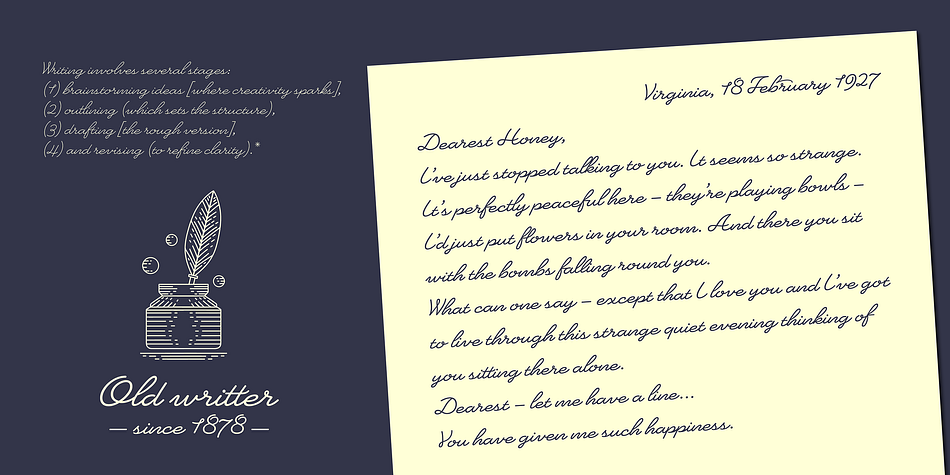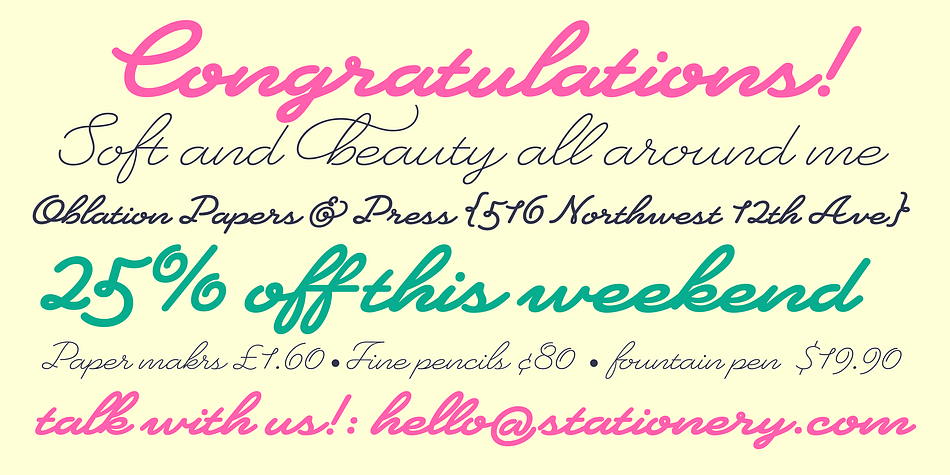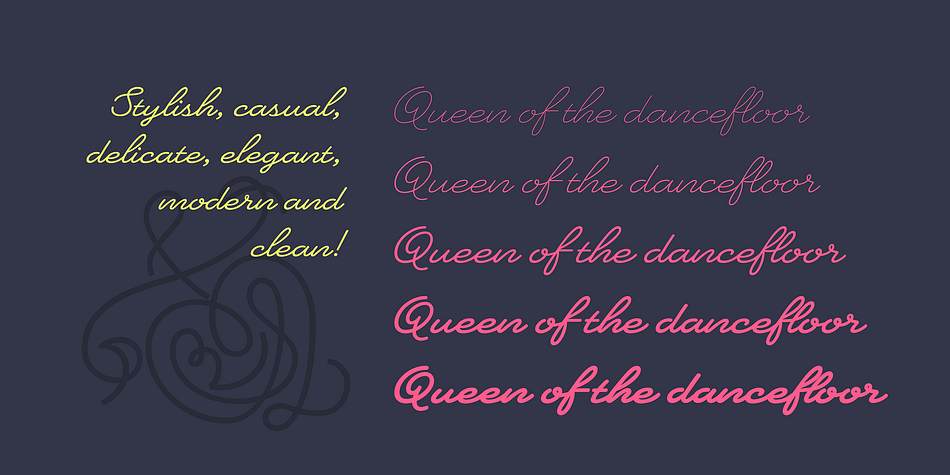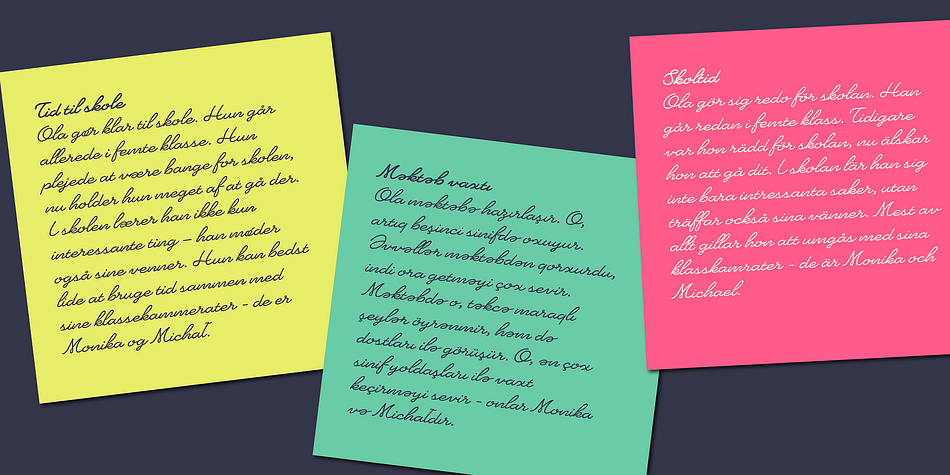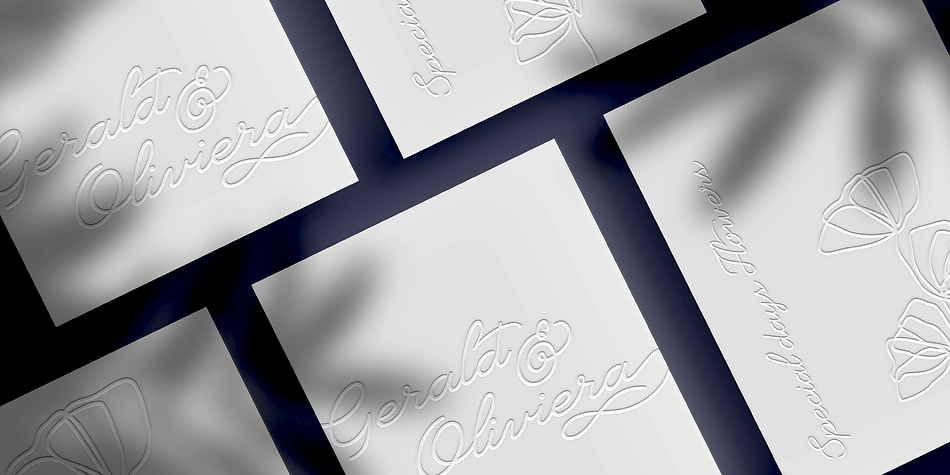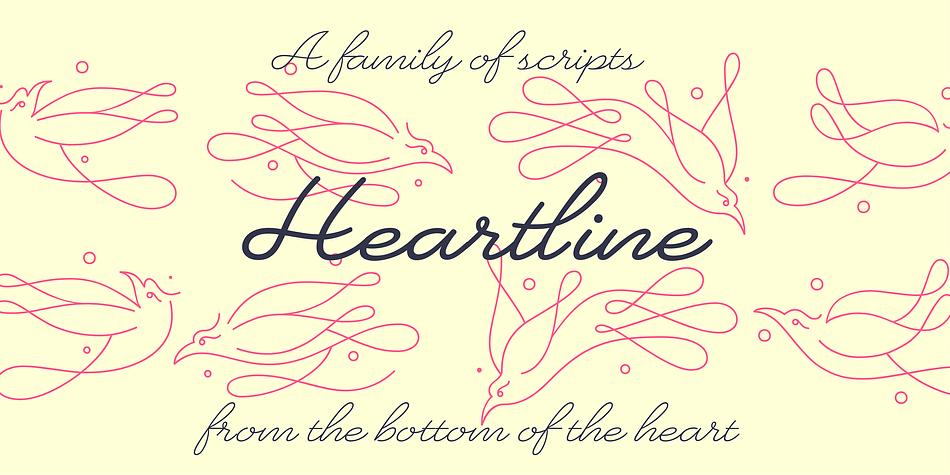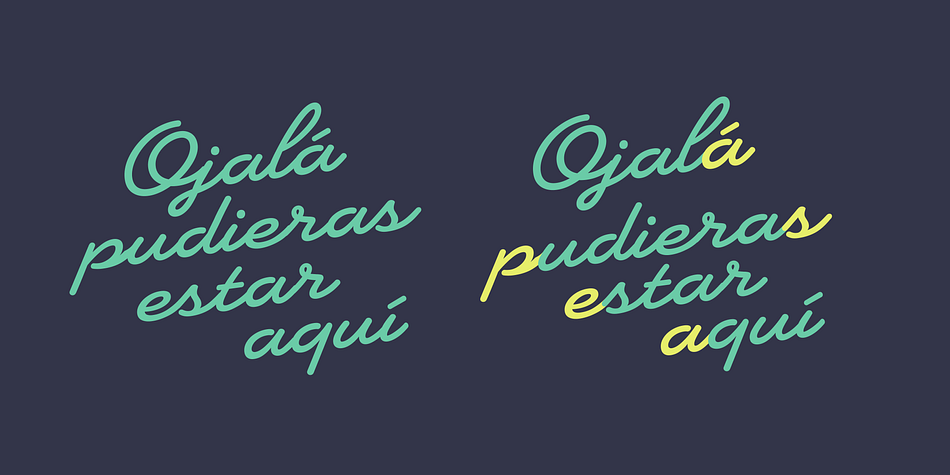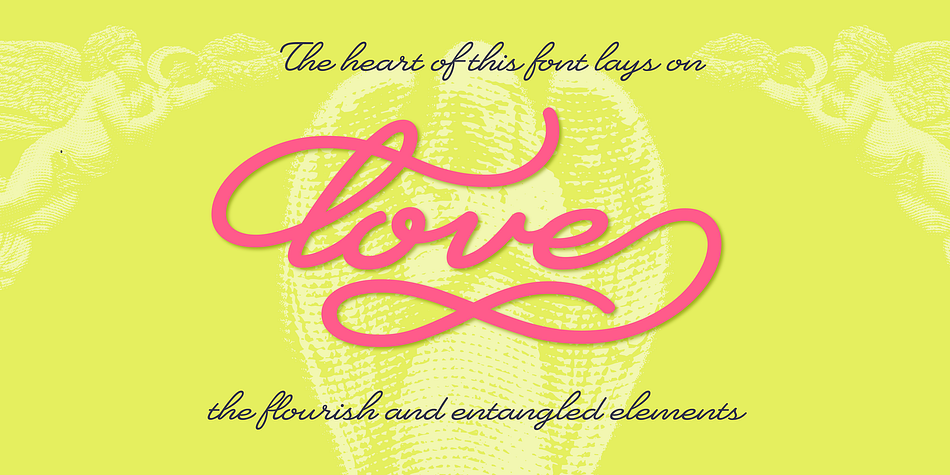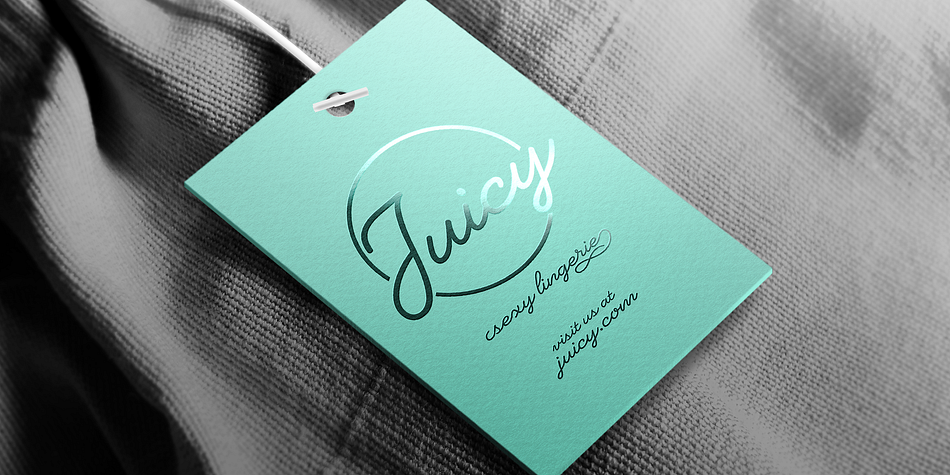
Heartline Script
Heartline Script is a script font family. This typeface has six styles and was published by Sudtipos.
A monolinear handwriting-inspired font family designed for expressive display use. Ideal for headlines, short texts, and typographic compositions where personality matters, it shines in contexts where calligraphy has a voice—stationery design, fashion branding, packaging, and beyond.
The true charm of this typeface lies in its flowing swashes and entangled decorative elements, which enrich the core character set with movement and elegance. These flourishes invite creative combinations, adding flair and individuality to every word.
Covering a wide range of Pan-European Latin languages, the family also includes a variable font version, allowing seamless transitions from Extra Light to Bold—perfect for flexible design systems and dynamic layouts.